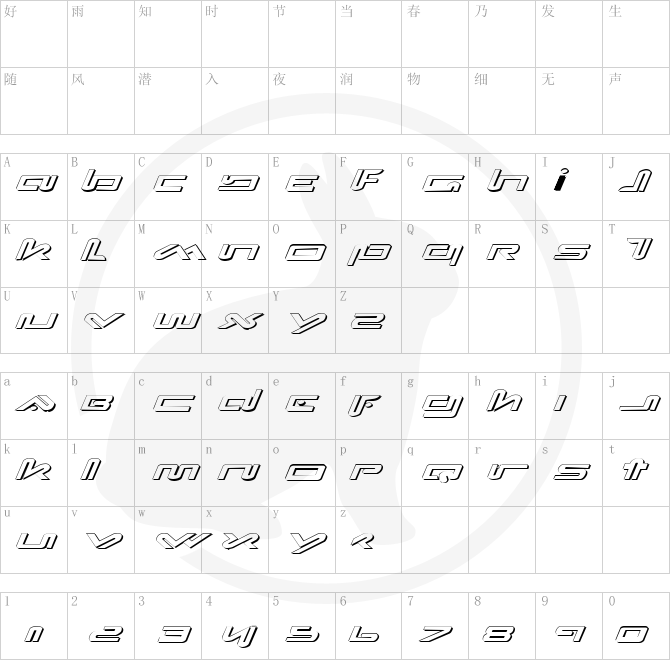
- Font Name:Xephyr Expanded Shadow Italic
Xephyr-Expanded-Shadow-Italic.ttf is a very beautiful artistic font, Xephyr-Expanded-Shadow-Italic.ttf is widely used in the design and printing of various books and pictures,Xephyr-Expanded-Shadow-Italic.ttf has a strong visual impact,Xephyr-Expanded-Shadow-Italic.ttf is a commonly used font in newspapers, magazines and books, and is used in posters, e-commerce Poster design, store design, logo design, font design and other fields.Xephyr-Expanded-Shadow-Italic.